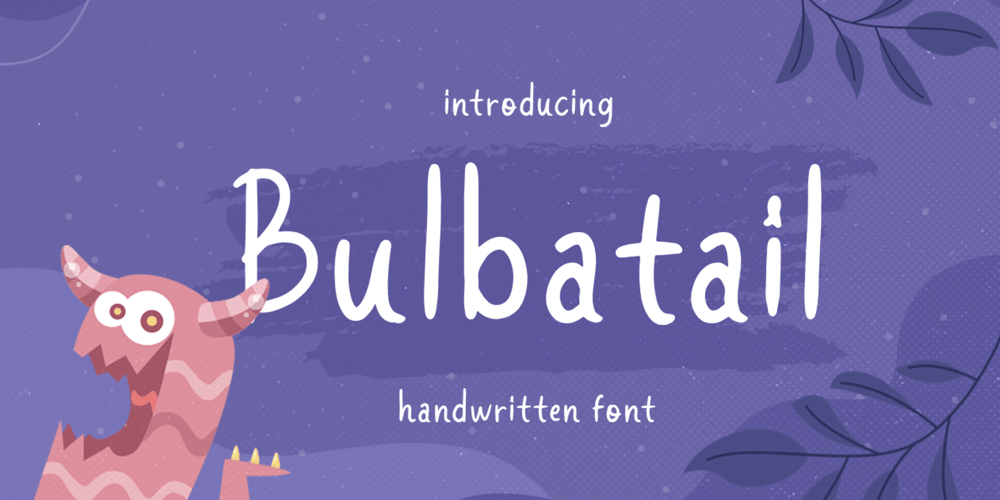
Bulbatail Font Family was designed by Hendry Juanda and published by Letterhend. Bulbatail contains 1 styles and family package options. Introducing, Bulbatail – a cute hand writing with casual looks. This type of font perfectly made to be applied especially in logo, and the other various formal forms such as invitations, labels, logos, magazines, books, greeting / wedding cards, packaging, fashion, make up, stationery, novels, labels or any type of advertising purpose.Features : uppercase & lowercase numbers and punctuation multilingual PUA encoded We highly recommend using a program that supports OpenType features and Glyphs panels like many of Adobe apps and Corel Draw, so you can see and access all Glyph variations.